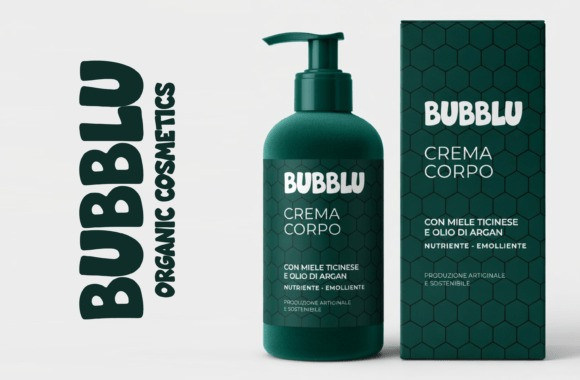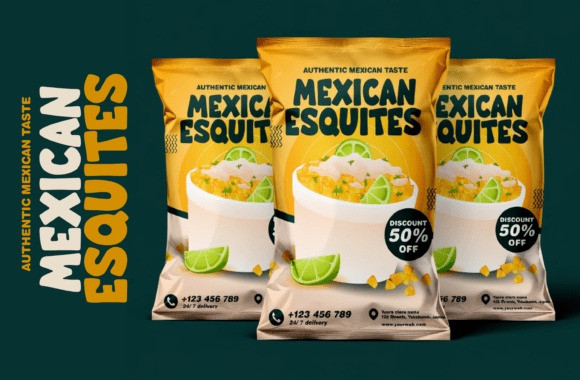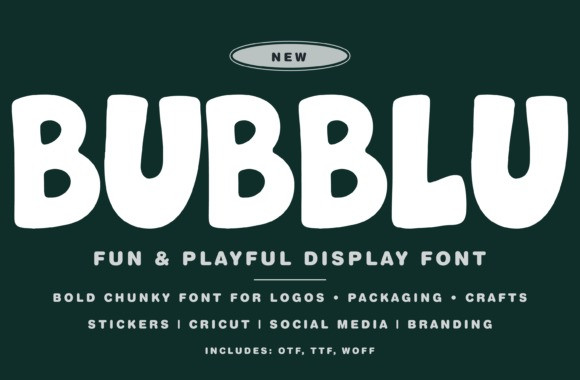
BUBBLU FONT
Bubblu Font is a bold, chunky and playful display font created for maximum impact, readability, and fun.With its rounded bubble letters, soft curves, and thick structure, this font is ideal for creators who want a cute, modern, and highly marketable style.